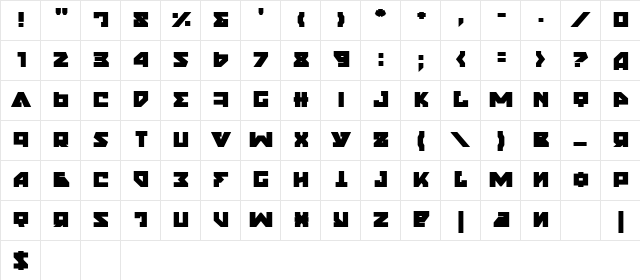
Complete Nyet Extra Bold glyph index. Displaying only characters natively supported by Nyet Extra Bold font.
Nyet is a composed and adaptable typeface that performs quietly and consistently across a wide range of design contexts. Its bold stroke weight gives it real presence on the page.